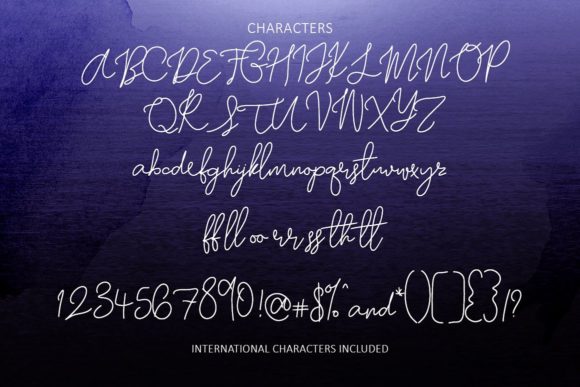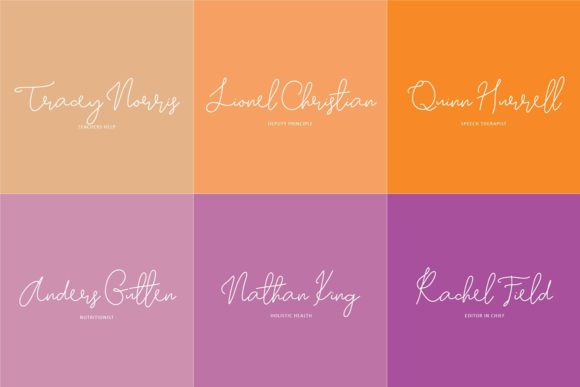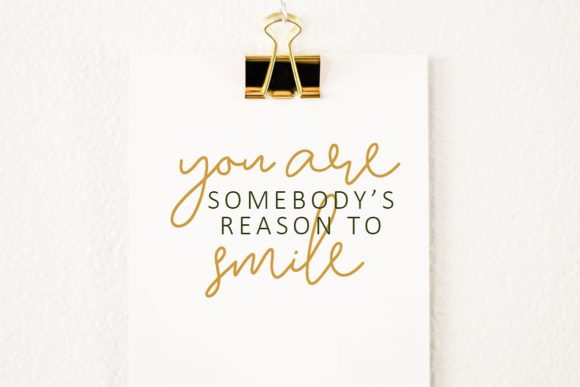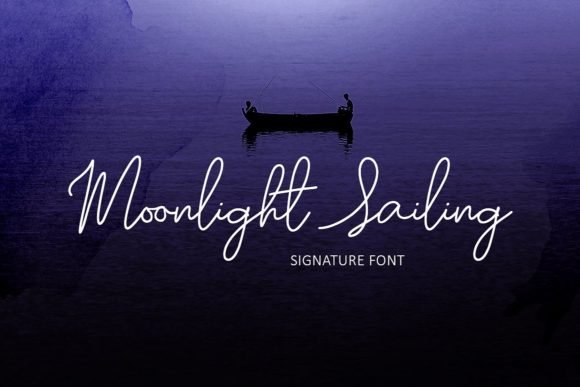
Introduction to Moonlight Sailing Script Font
The Moonligt Sailing is a gorgeous handwritten font with double ligatures.
This signature font has a natural handwritten style and is perfect for adding a personal touch to your designs .
Why Choose Moonlight Sailing Script Font?